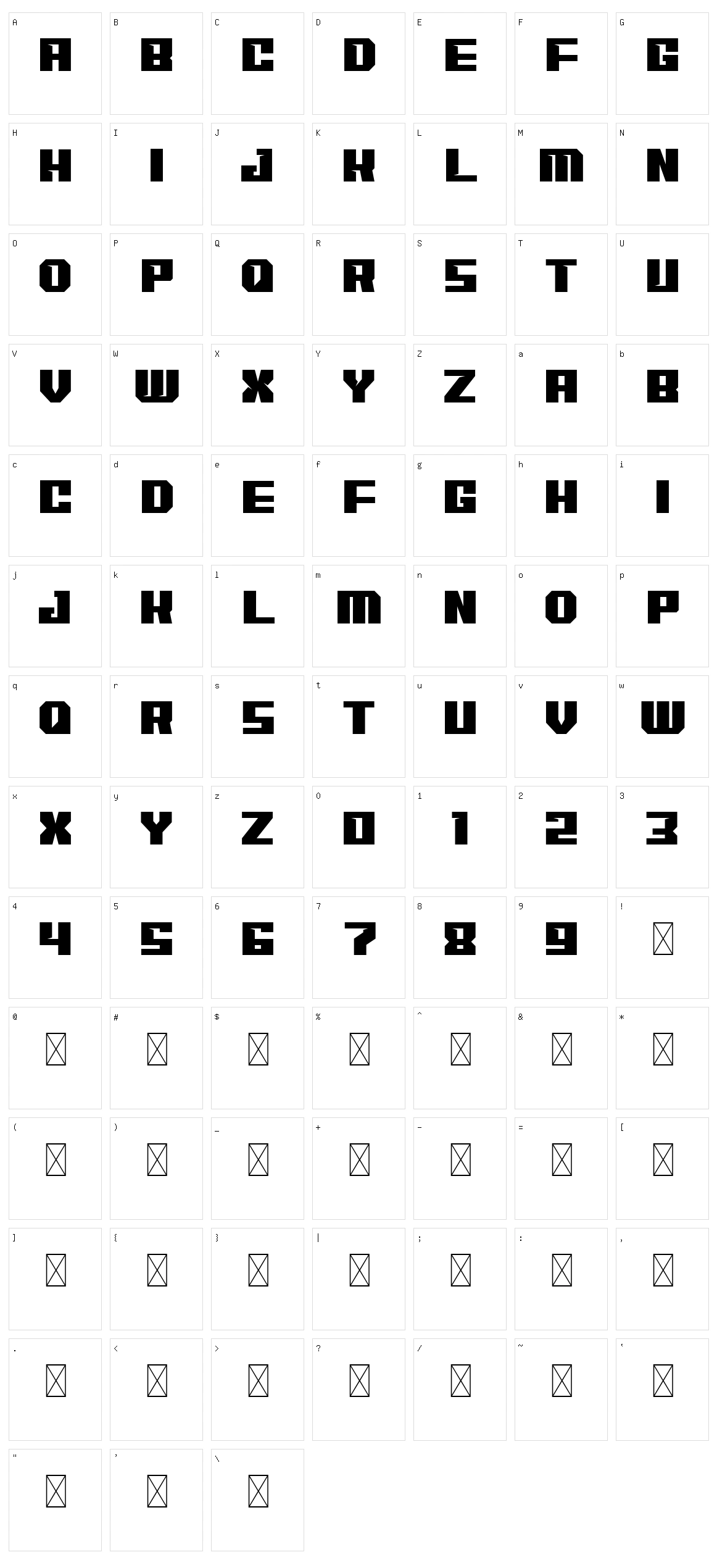
The free font Monocoque is carefully designed by Tokokoo Studio, showcasing a thoughtful balance of creativity and usability and falls under the Square font style. When you download the ZIP file, it contains only 6.33 KB of font files, making it lightweight and quick to download. Please review the license details below to understand permitted usage and distribution rights. If license information is not available, we recommend using this font for personal projects only or contacting the author directly for commercial usage permissions.